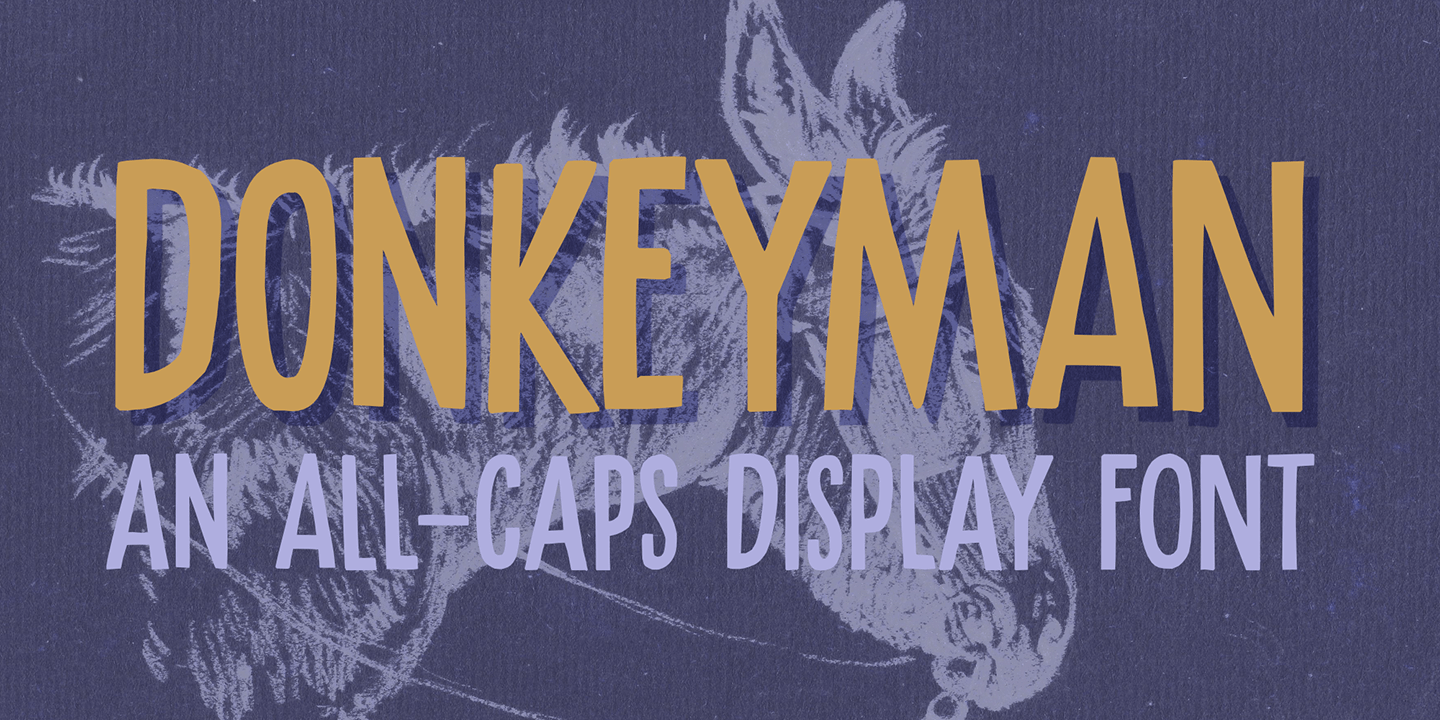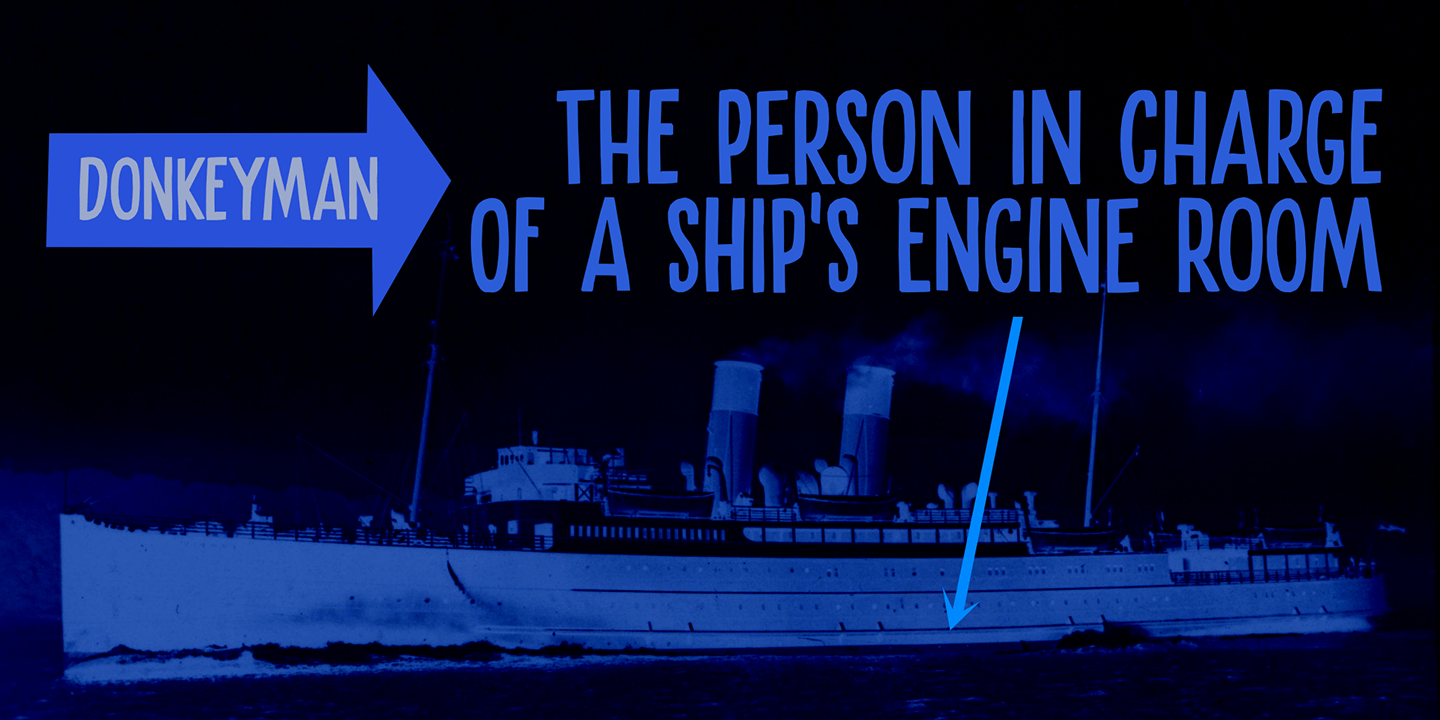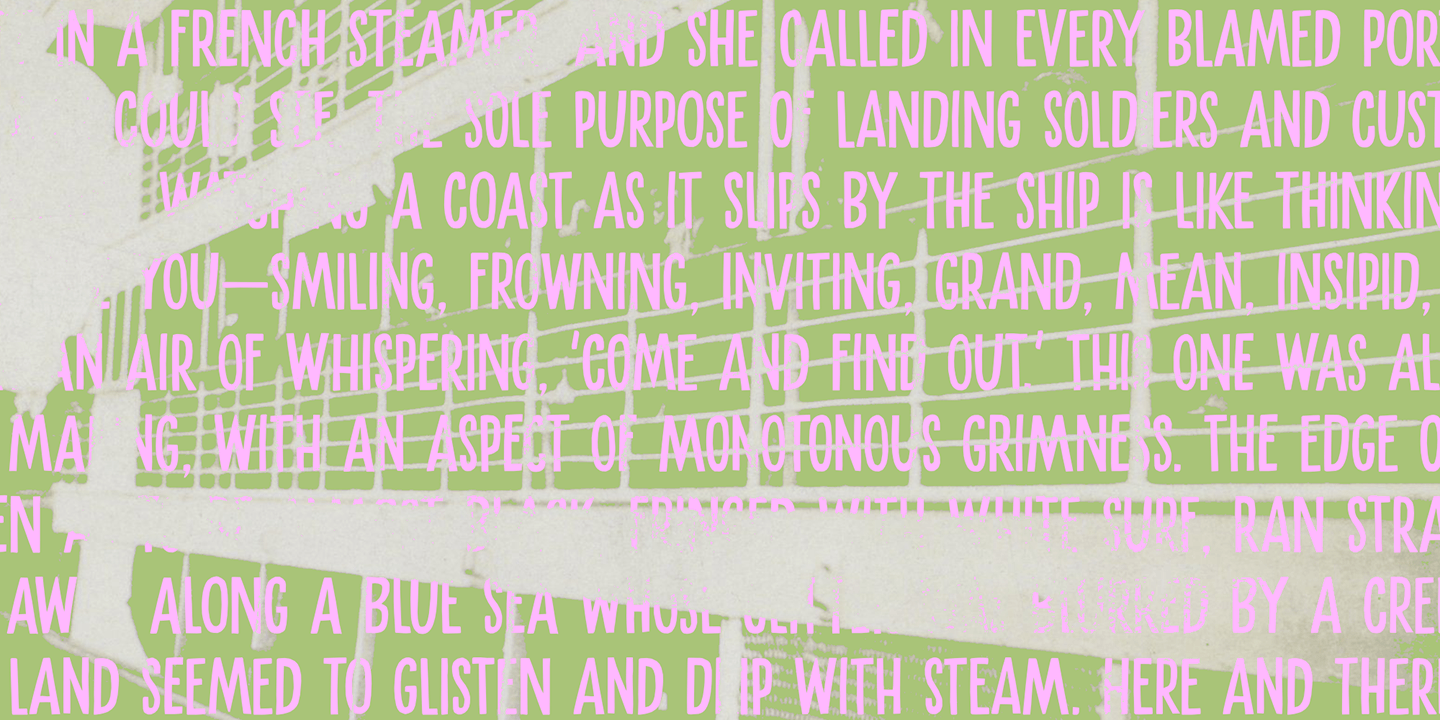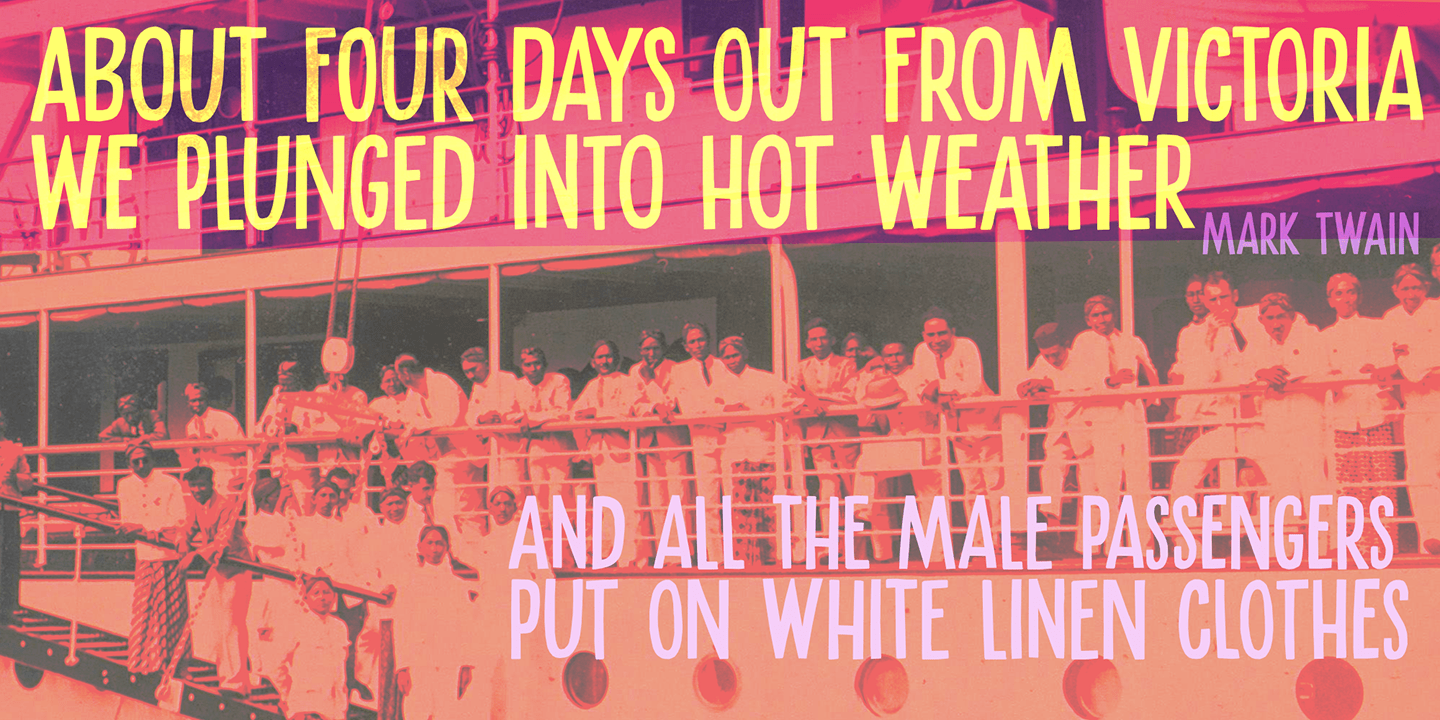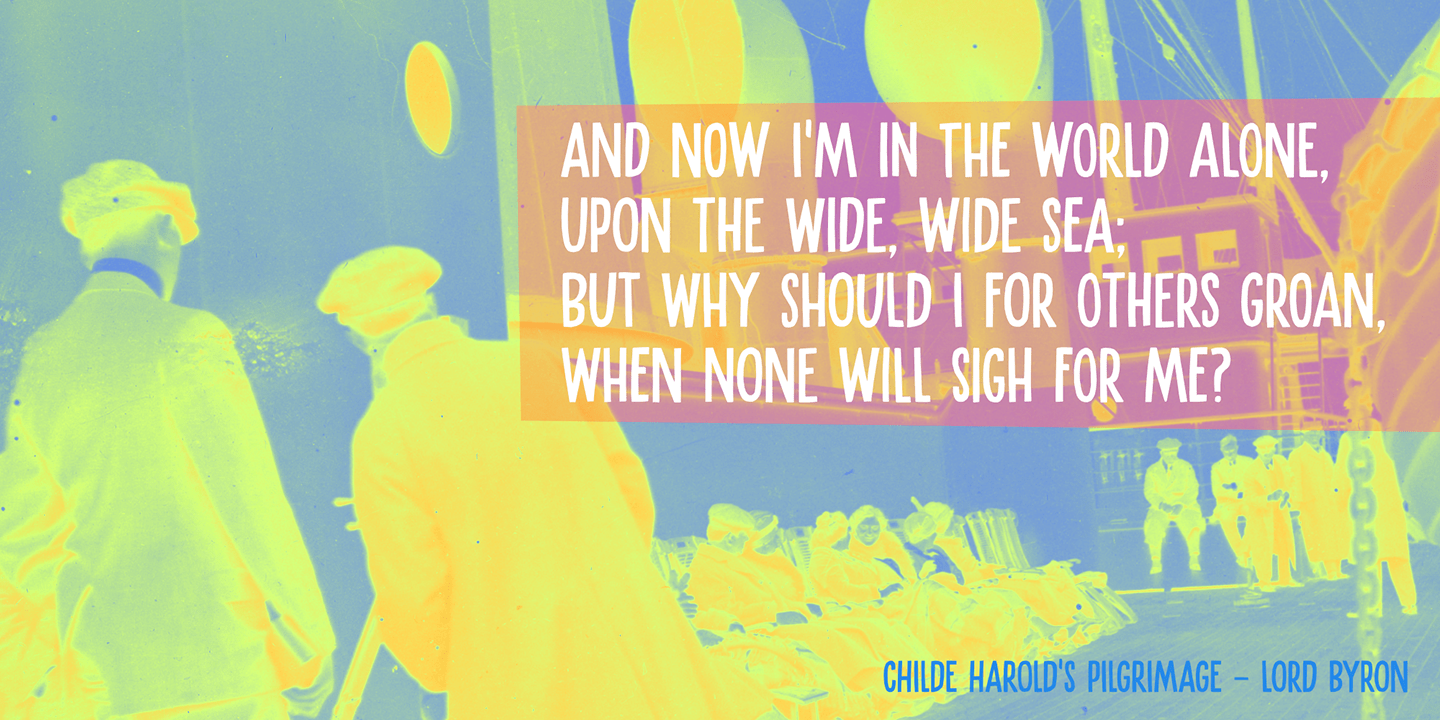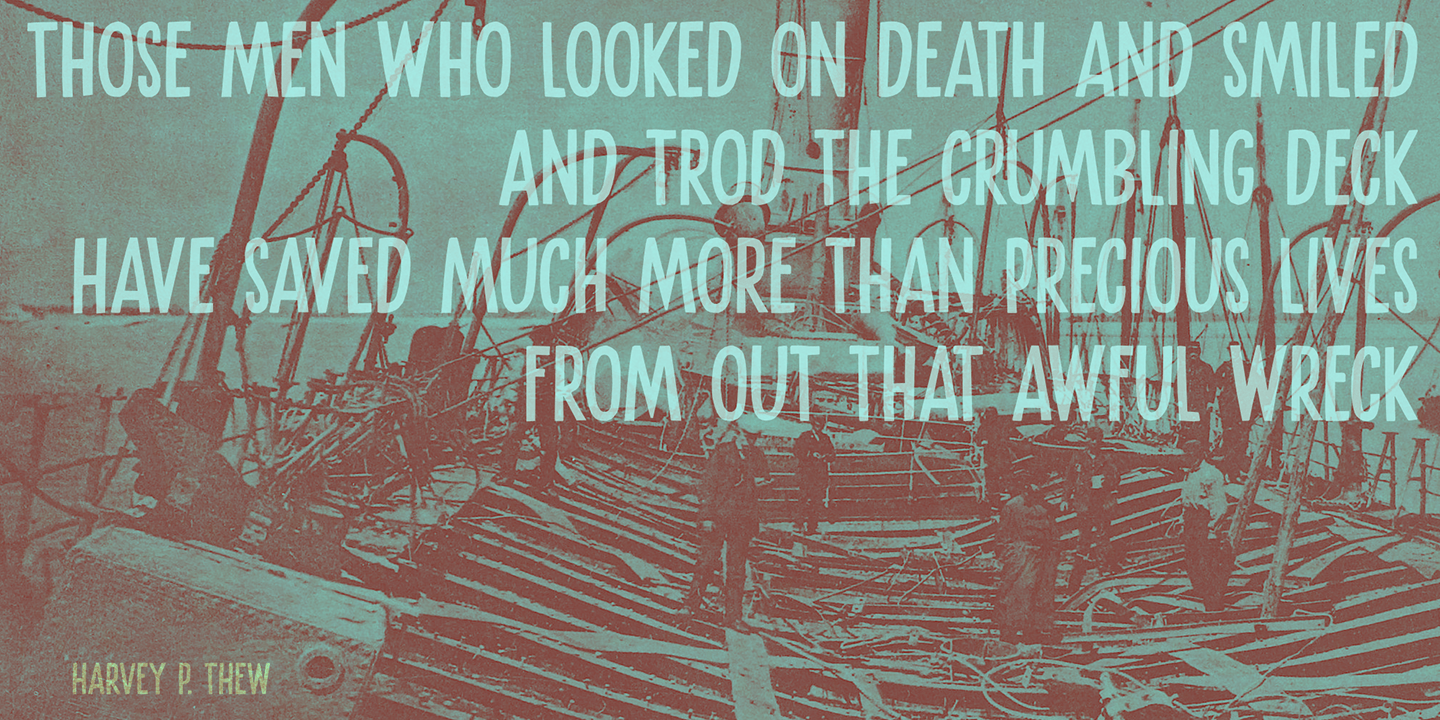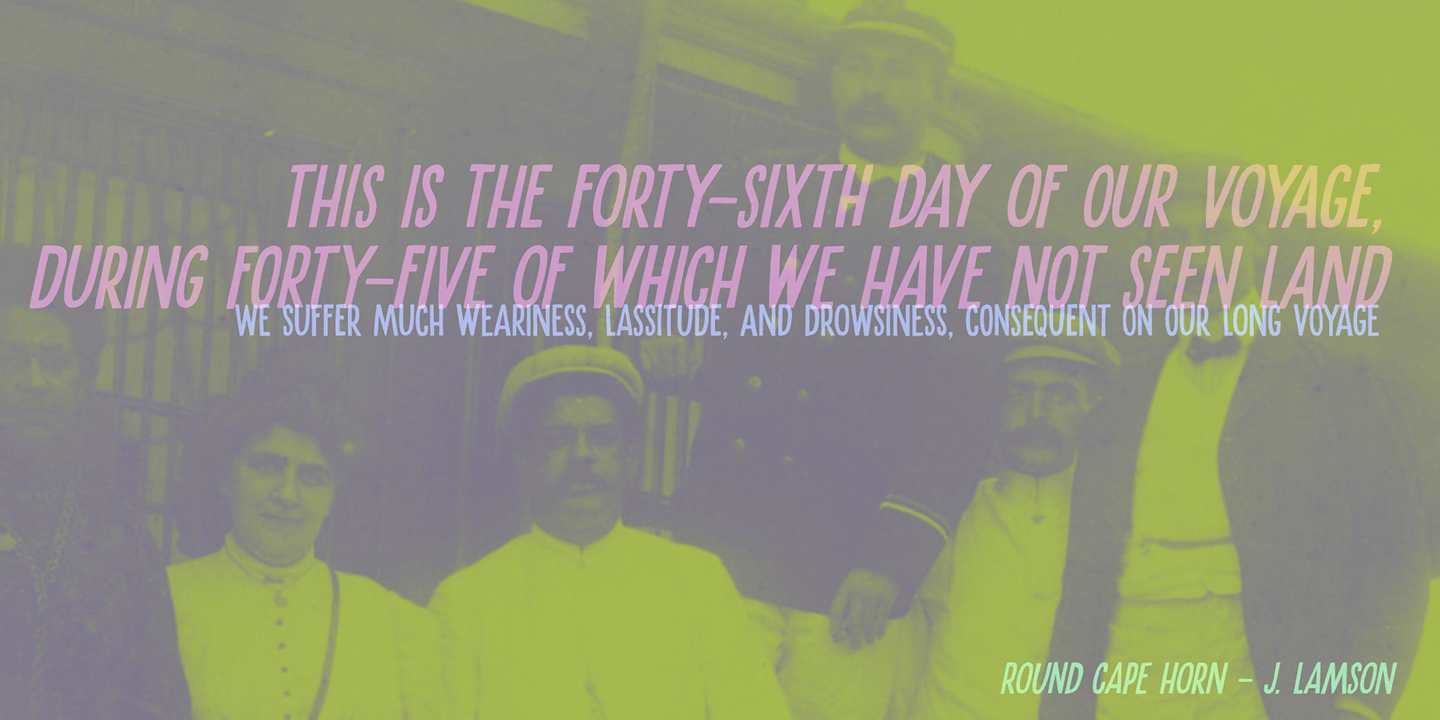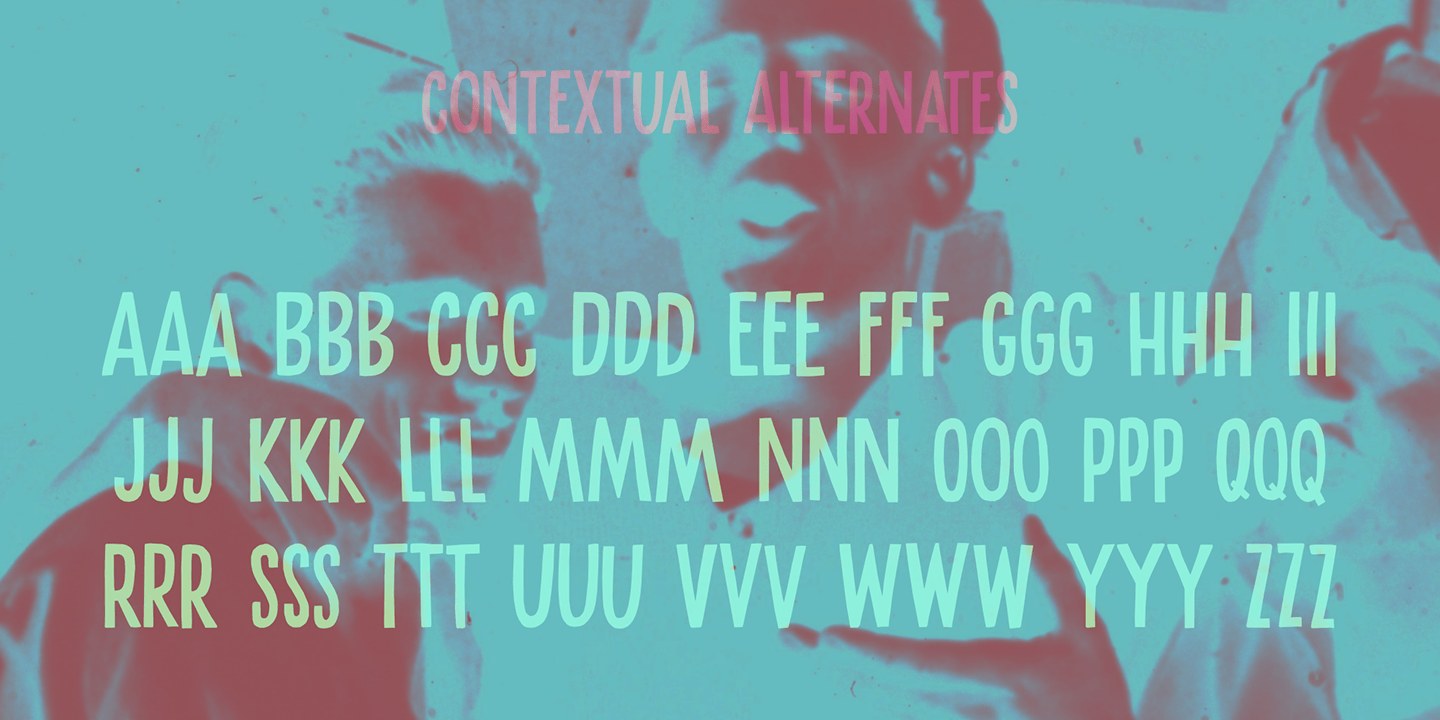
Donkeyman
Font Family by Hanoded
A Donkeyman is a person who is in charge of a ship's engine room. I didn't know this, but when I was looking for a nice name for this font, I sort of stumbled upon it.
Donkeyman font is quite a useful font: it is a handmade, all-caps font that comes with two sets of alternate glyphs. The alternates cycle as you type, creating a ?random? effect.
Comes with extensive language support, including Sami and Vietnamese.